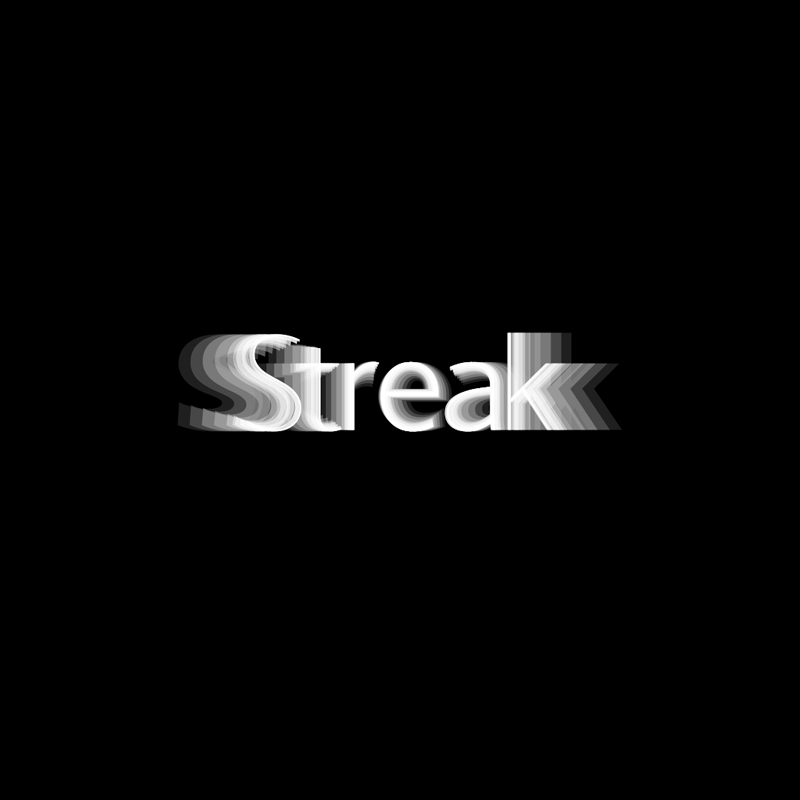
LT Streak is a humanist typeface with a few references of fonts designed by British type foundries, such as Fontsmith, Dalton Maag, etc. It is also the new LyonsType website font. It consists of international language support, Cyrillic support (as always, to help support Ukraine), - and for the fundamental part - italics. Any questions? Don't hesitate to contact me at lyonstype@pm.me Visit LyonsType at: https://lyonstype4.wixsite.com/lyonstype-beta |